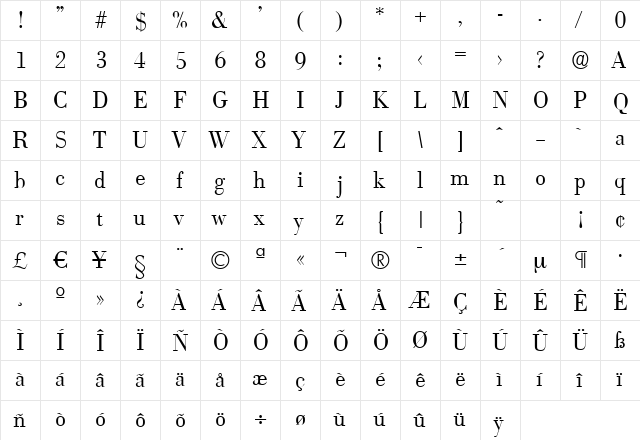
JosephBeckerLight Regular
JosephBeckerLight offers clean, dependable letterforms without strong stylistic allegiance, making it a practical choice for designers who need flexibility. The delicate stroke weight brings airiness and refinement to layouts.